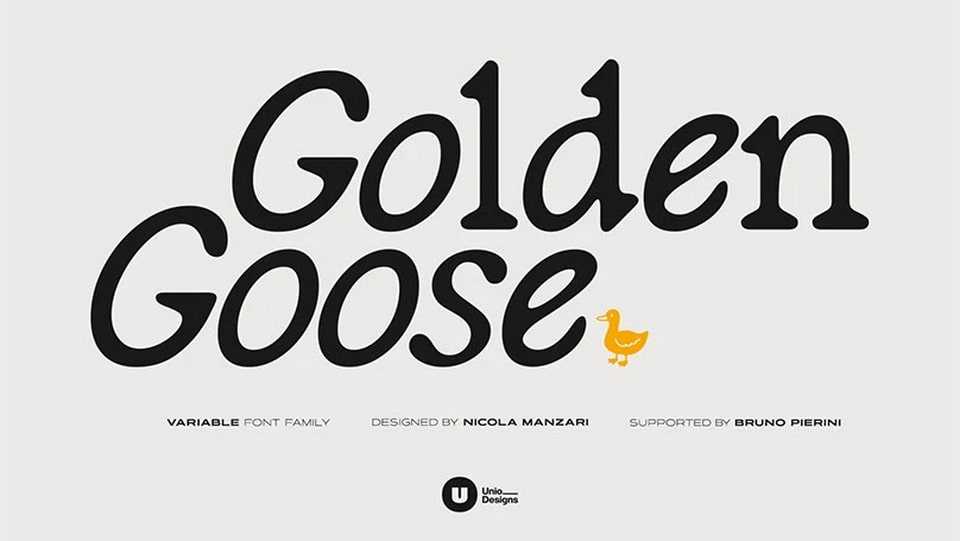
Download Golden Goose font, a serif with a hand-made touch that reimagines the italic. Instead of offering a traditional oblique, it hybridizes italic behavior directly into the regular
Designer: Unio Creative Solutions